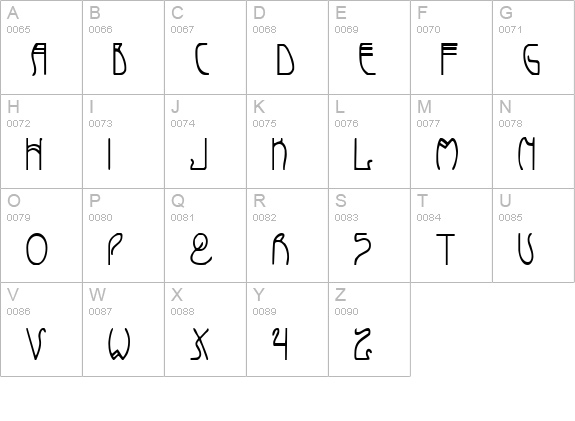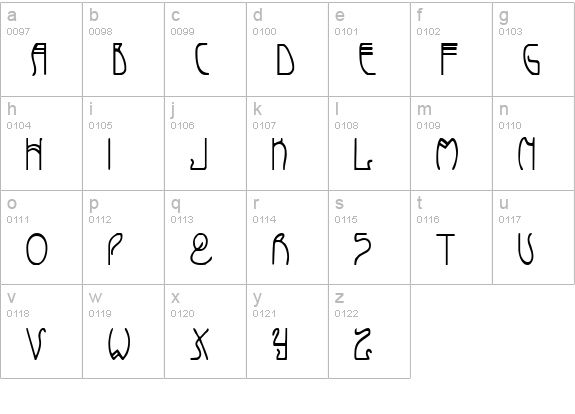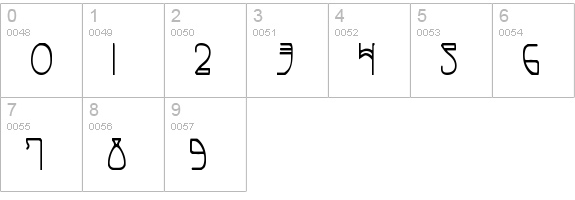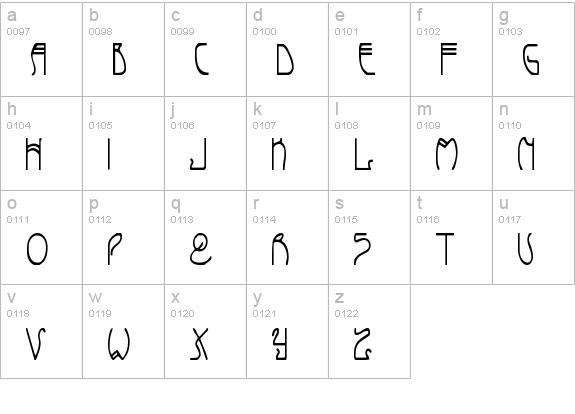
Coyote Deco Condensed is a distinctive, condensed-width variant in the Coyote typeface family \xE2\x80\x94 well suited to design and typography projects.
Coyote Deco Condensed font is a sleek and modern typeface that exudes sophistication and charm. With its clean lines and elegant curves, this font is perfect for adding a touch of class to any design project. The condensed style gives it a unique and eye-catching look that is sure to make a statement. This font is not only stylish but also versatile, making it suitable for a wide range of design applications. Whether you're creating a logo, poster, flyer, or website, Coyote Deco Condensed font will help your project stand out from the crowd. Best of all, this font is free to download at FontsMarket.com. Simply visit the website to get your hands on this gorgeous typeface and start using it in your designs today. Don't miss out on the opportunity to elevate your projects with the stunning Coyote Deco Condensed font.